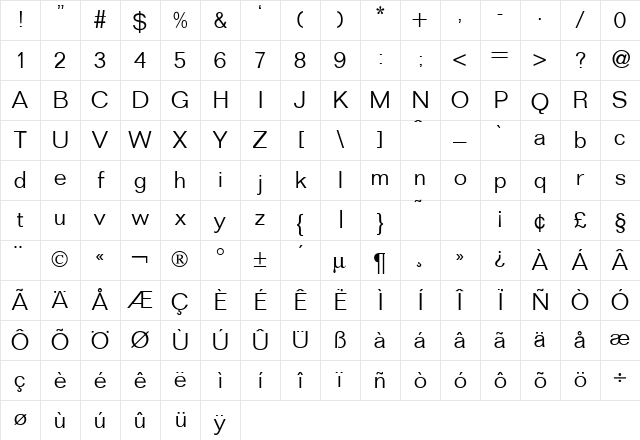
FolderLightDB Normal
Design Context for FolderLightDB
FolderLightDB is a composed and adaptable typeface that performs quietly and consistently across a wide range of design contexts. Its slender proportions lend an understated elegance to any composition.